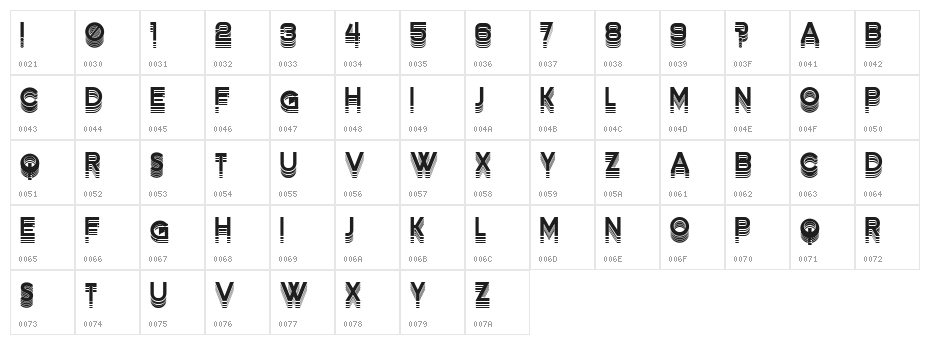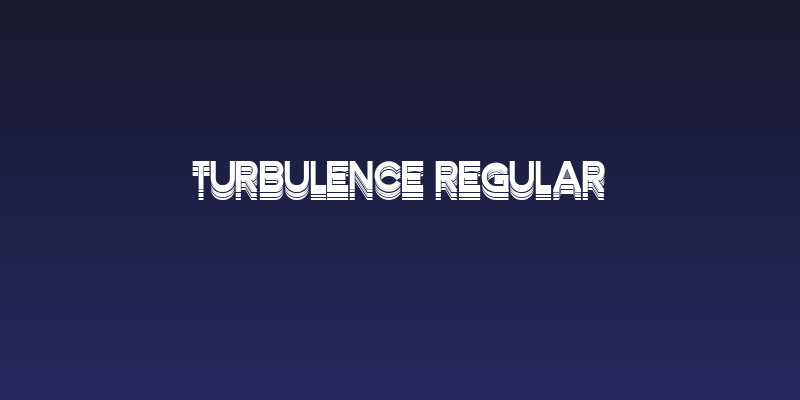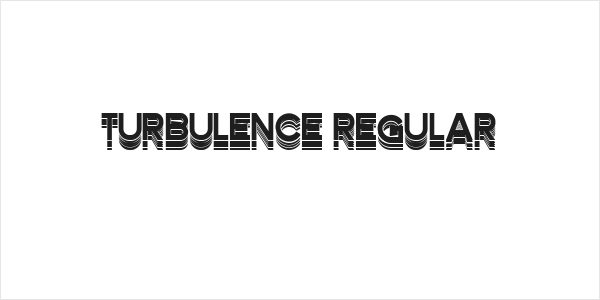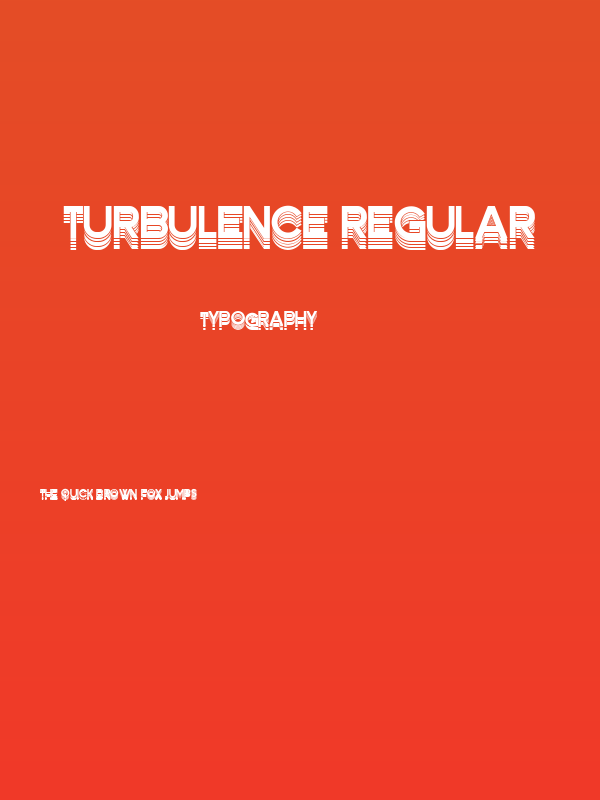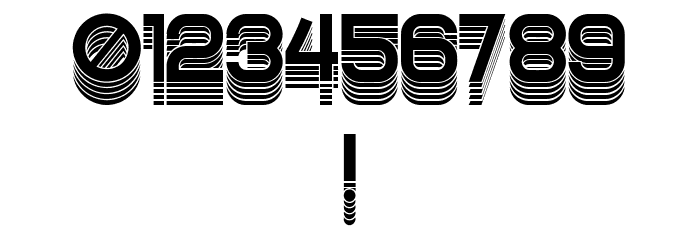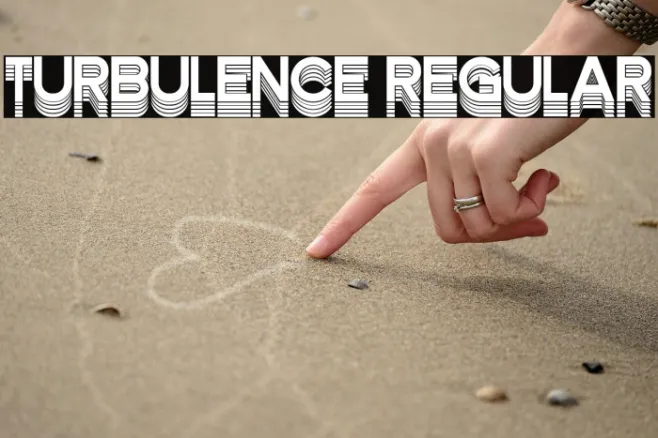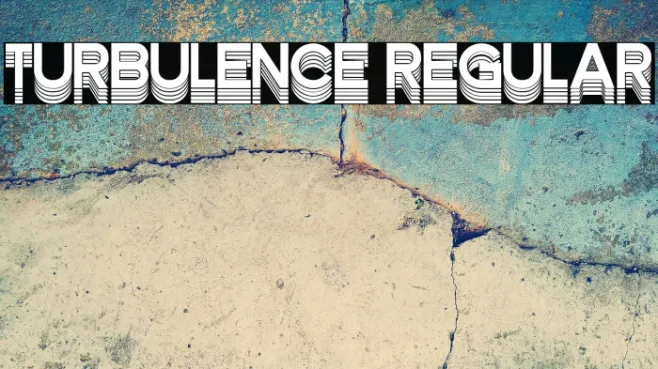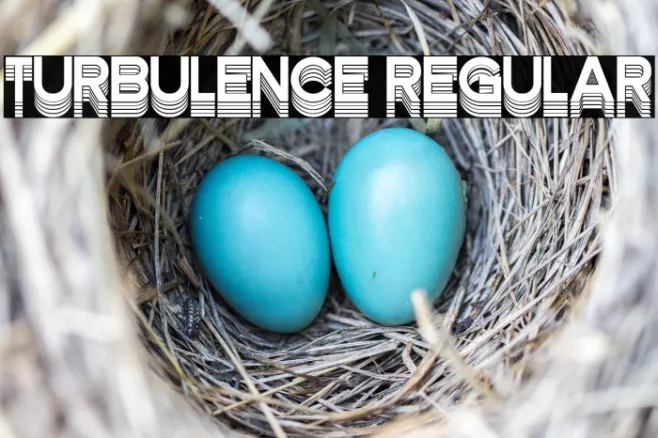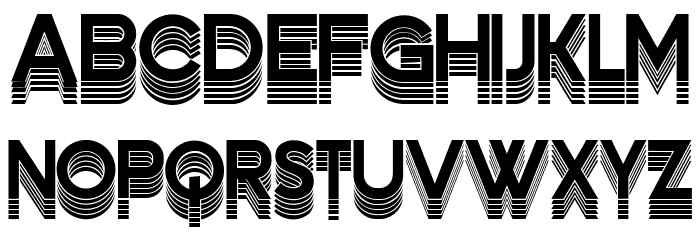
Turbulence Regular Font
Turbulence Regular Description
This font features a bold, layered design with a striking 3D effect. Each character is composed of multiple parallel lines that create a sense of depth and movement, making it visually dynamic. The uppercase letters are bold and commanding, while the numbers and special characters maintain the same layered style. The font's geometric structure and consistent line thickness contribute to its modern and futuristic appearance. It is ideal for projects that require a strong visual impact, such as posters, headlines, and branding materials.
| Proposed Projects | Ideal for posters, headlines, branding, and any design needing a strong visual impact. |